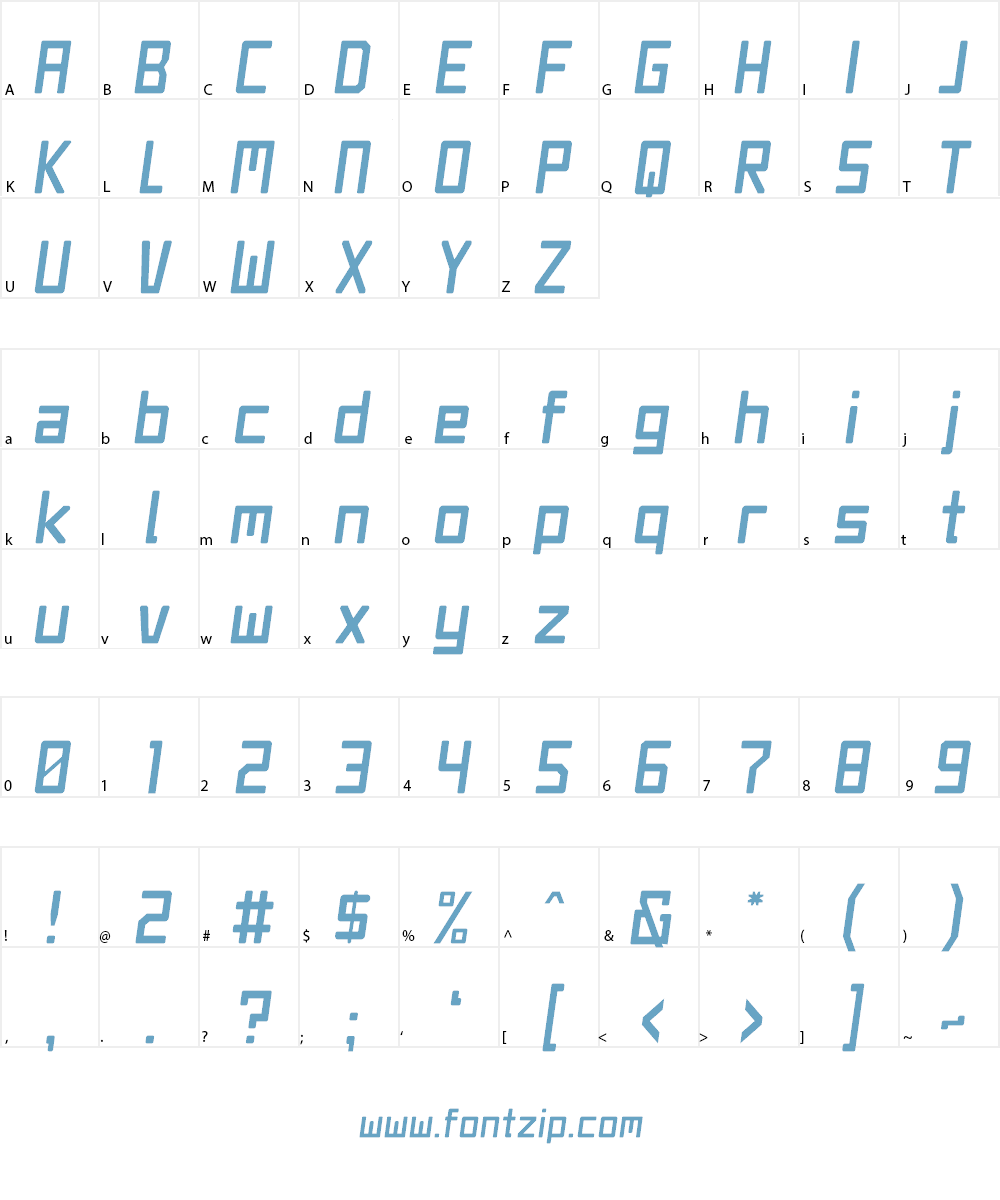
This is a homemade version of the font seen in Jet Set Radio/Jet Set Radio Future, with regular and italic versions available. Naturally, some tweaks have been made to improve readability, but the feel is the same. NO tracing was done.
Keep in mind, this font can be used as a replacement for something like Arial or Times New Roman, but it's niche is definitely comic books: Speech Bubbles, Etc.